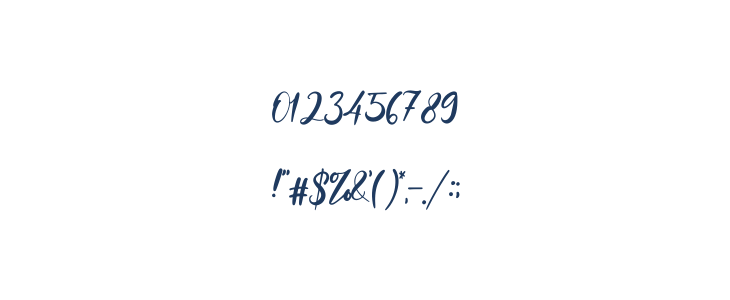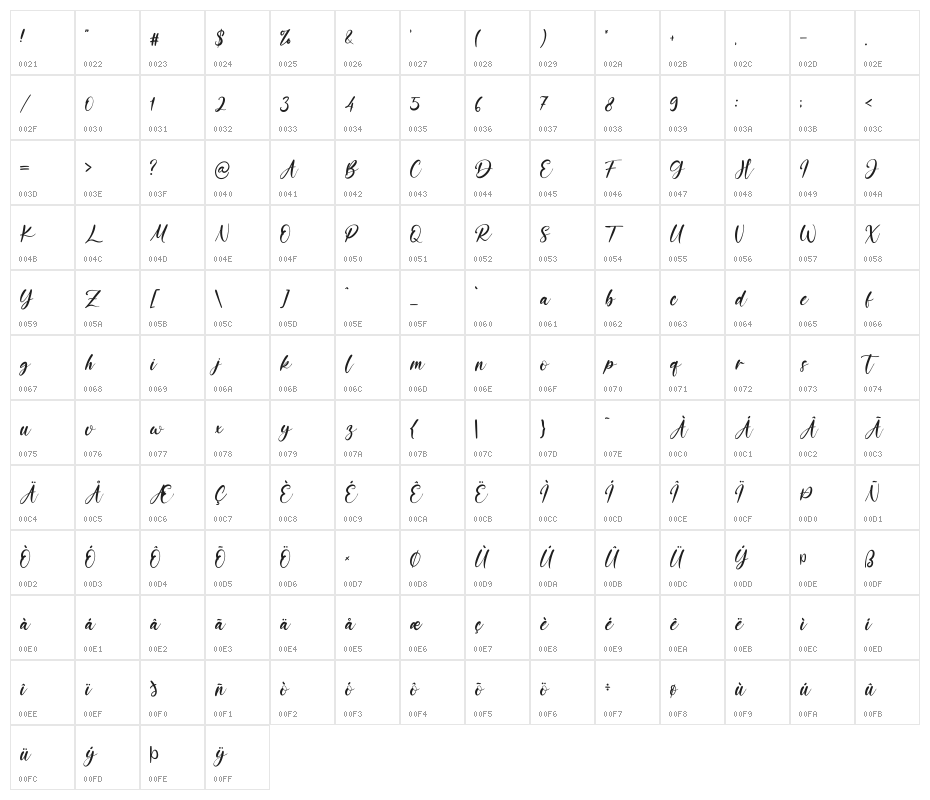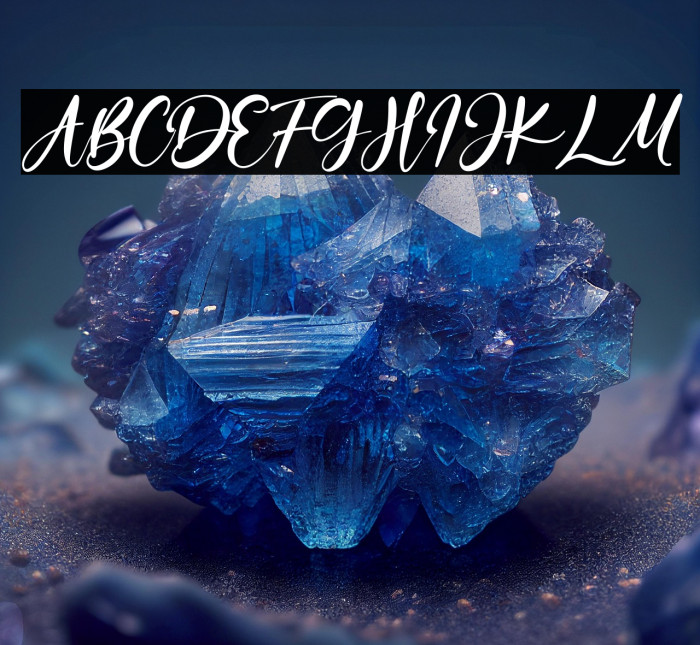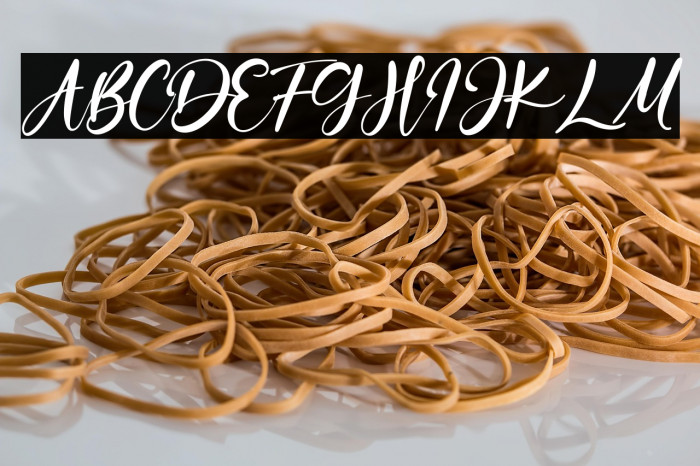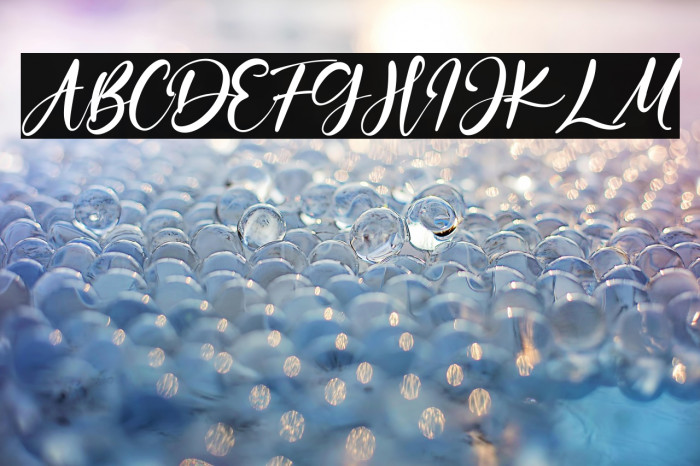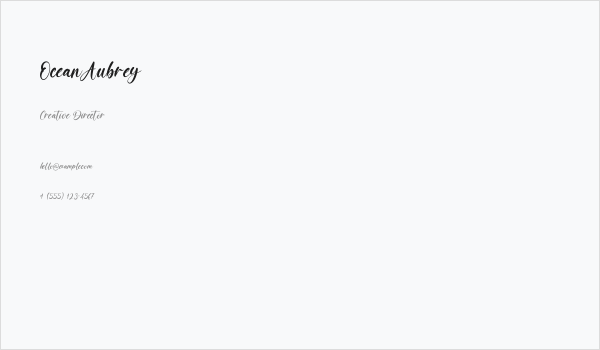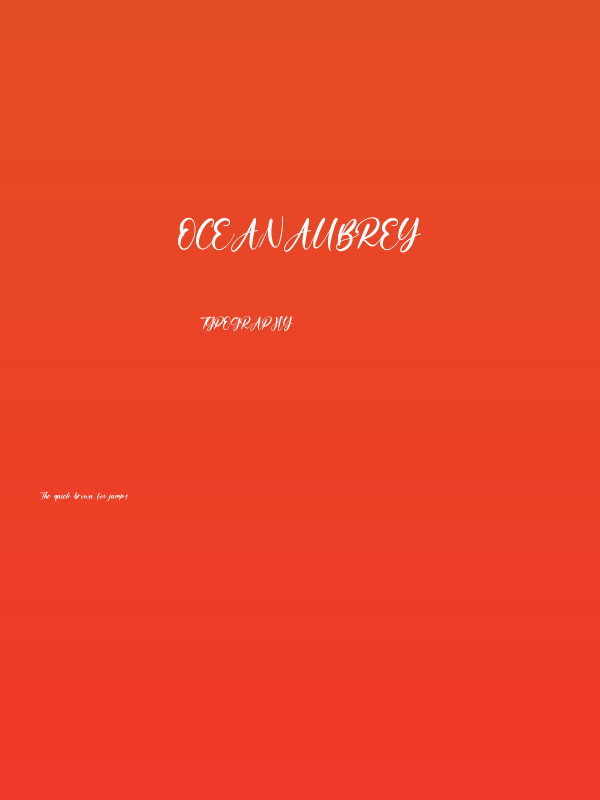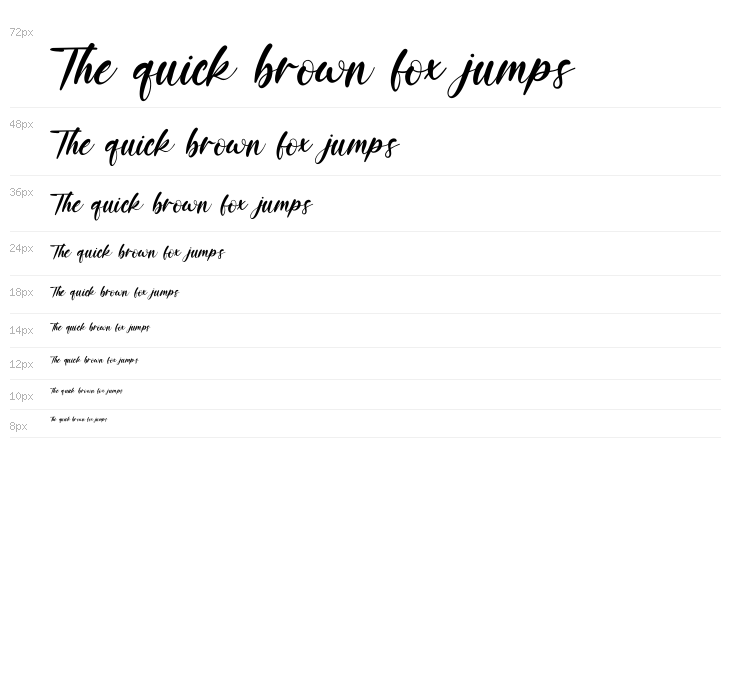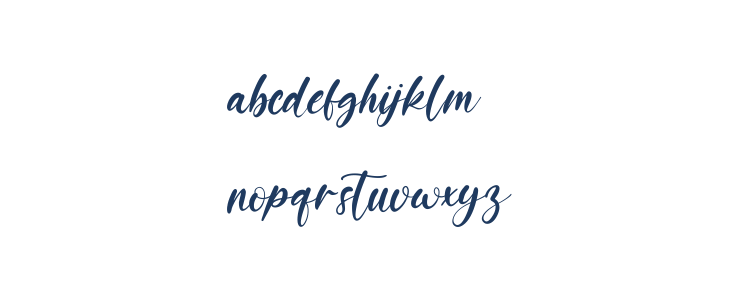
OceanAubrey Font
OceanAubrey Description
This font features an elegant and flowing script style, characterized by its smooth, cursive strokes and graceful curves. The letters are interconnected, creating a sense of fluidity and movement. It has a sophisticated and artistic appearance, making it suitable for creative and decorative purposes. The uppercase letters are slightly more elaborate, with additional flourishes, while the lowercase letters maintain a consistent and harmonious flow. The numerals and special characters are designed to complement the overall style, ensuring a cohesive look across all text elements.